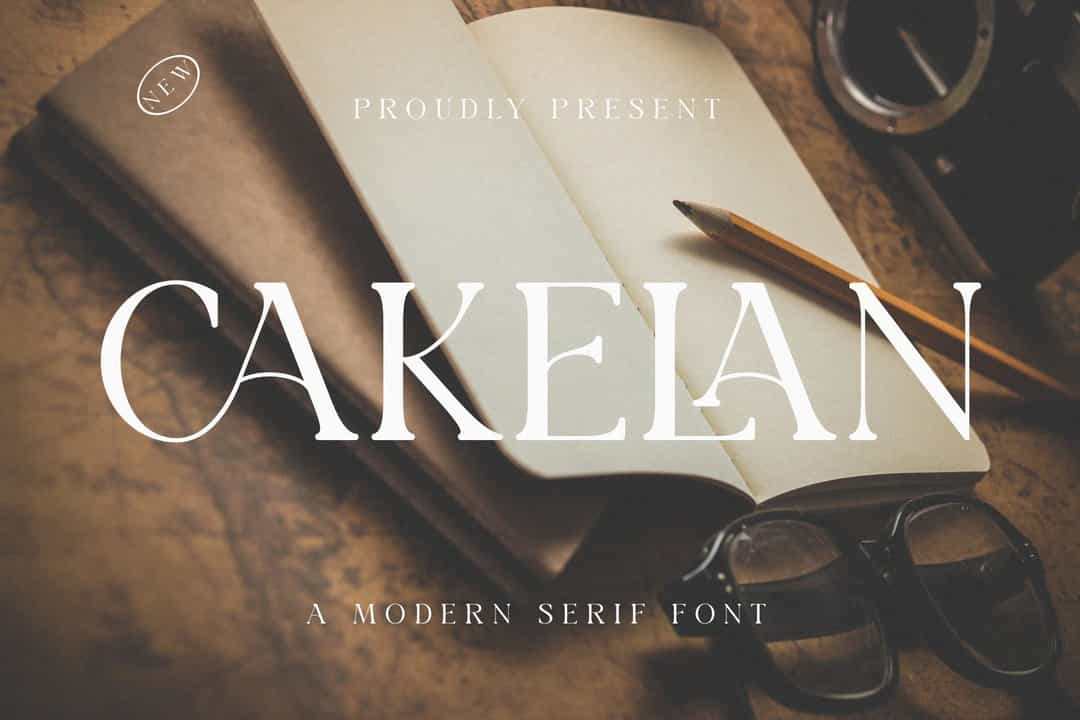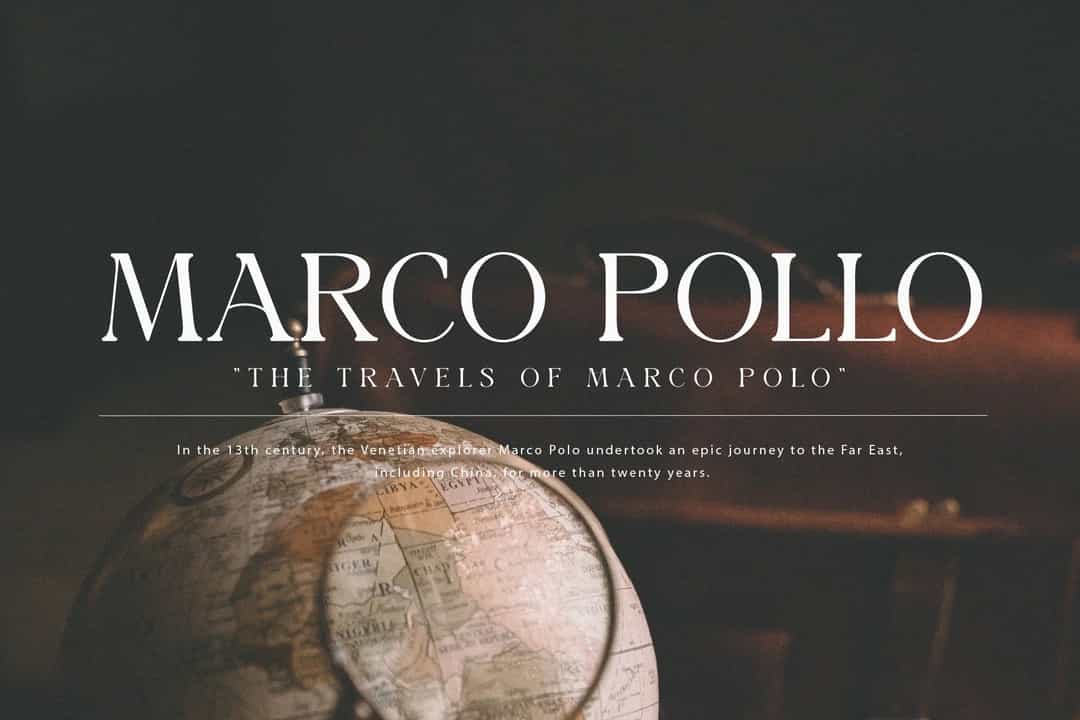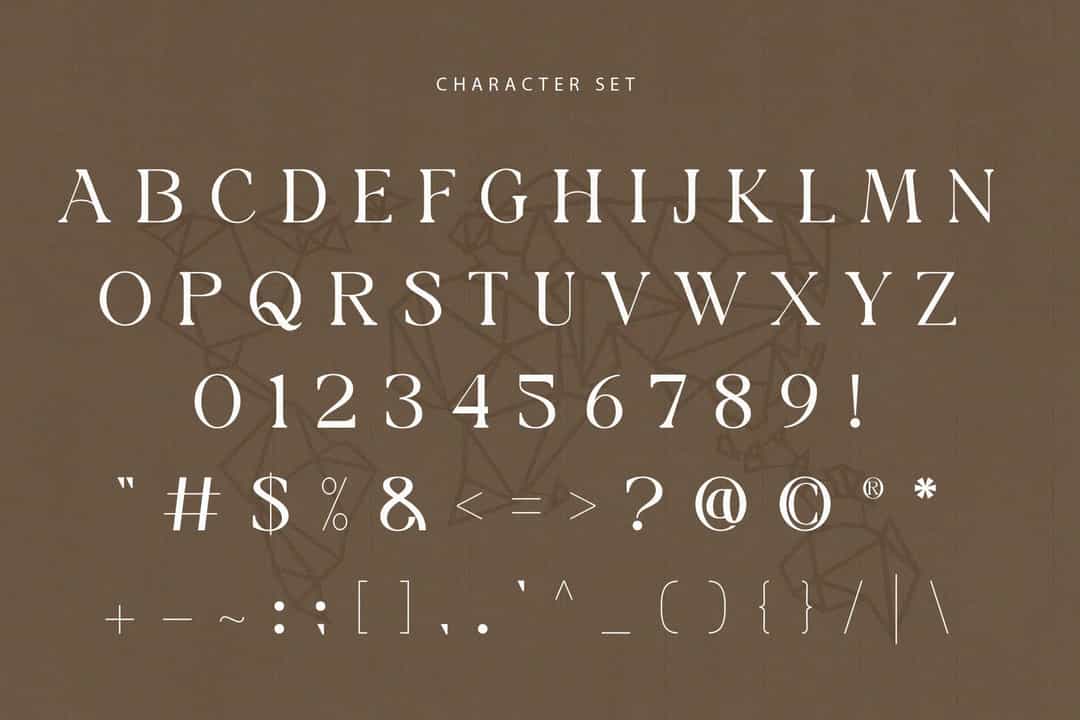
Cakelan is an elegant serif font designed to bring luxurious aesthetic to designs of all kinds: websites, logos, branding identities and social media posts, wedding stationery – any project imaginable! With its minimalist and contemporary aesthetic design, CAKELAN provides luxurious aesthetic for designs such as websites. With its minimalist yet contemporary appearance and minimalist yet contemporary design features, CAKELAN adds luxurious aesthetic that complements designs in an instant!